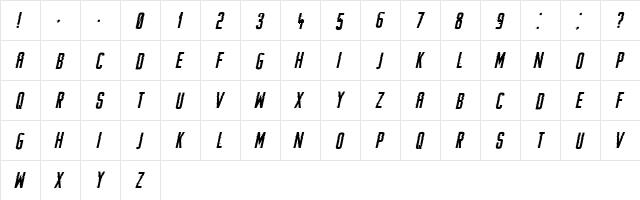
Searching For Signal Italic
Design Context for Searching For Signal Typeface
Searching For Signal takes a measured approach to typography — its balanced proportions and neutral character make it a reliable workhorse for both digital and print work. Its italic angle brings a sense of urgency and motion to the letterforms.